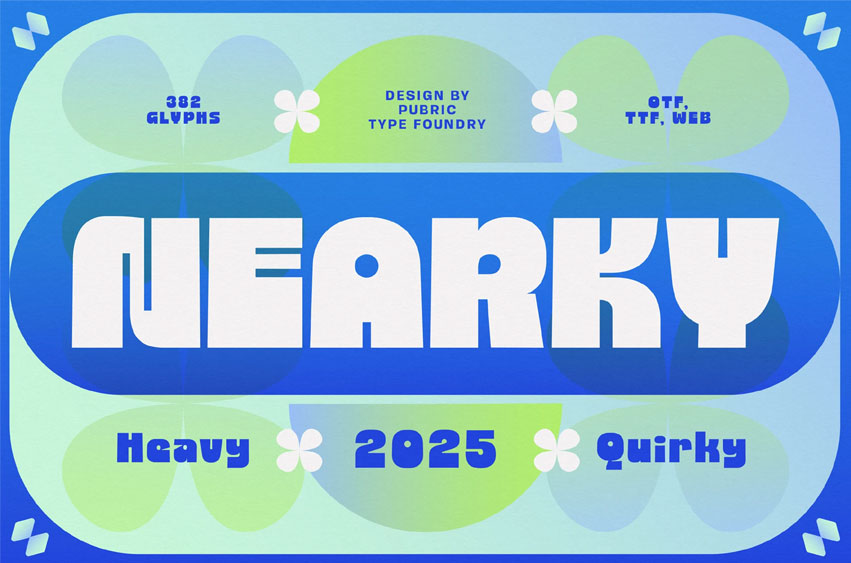
Nearky Font
Nearky Font is an experimental font with bold, distinctive shapes that offer a strong, confident, yet approachable vibe. Suitable for posters, logos, headlines, and designs that need to stand out.
Ideal for headlines, logos, editorials, packaging, quotes, films, games, album covers, books, and promotional materials. This font ensures your design stands out in any setting.